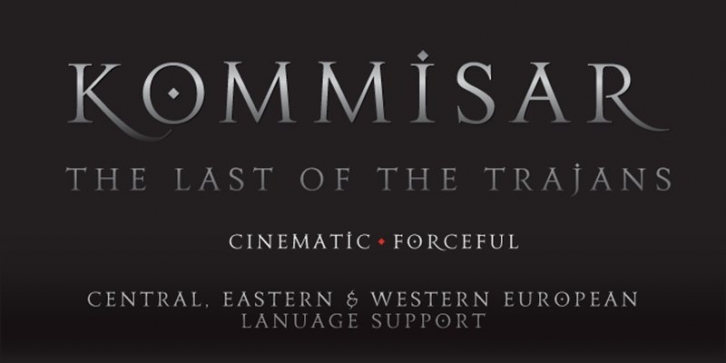
Kommisar is a typeface loosely based on the inscriptions on the Trajan capital in Rome and informed by the structural sensibilities of American signpainter and lettering artist Father Edward Catich.
Perfect for use in advertising, movie posters, movie titles, identity design, or any work needing to convey a sense of authority- Kommisar is also perfect for music packaging and promotion design.
Kommisar is perfectly at home in movie titling, band logos across the spectrum- from metal to hip-hop, as well as in use for packaging work. It contains a full Western, Central & Eastern European language character set.